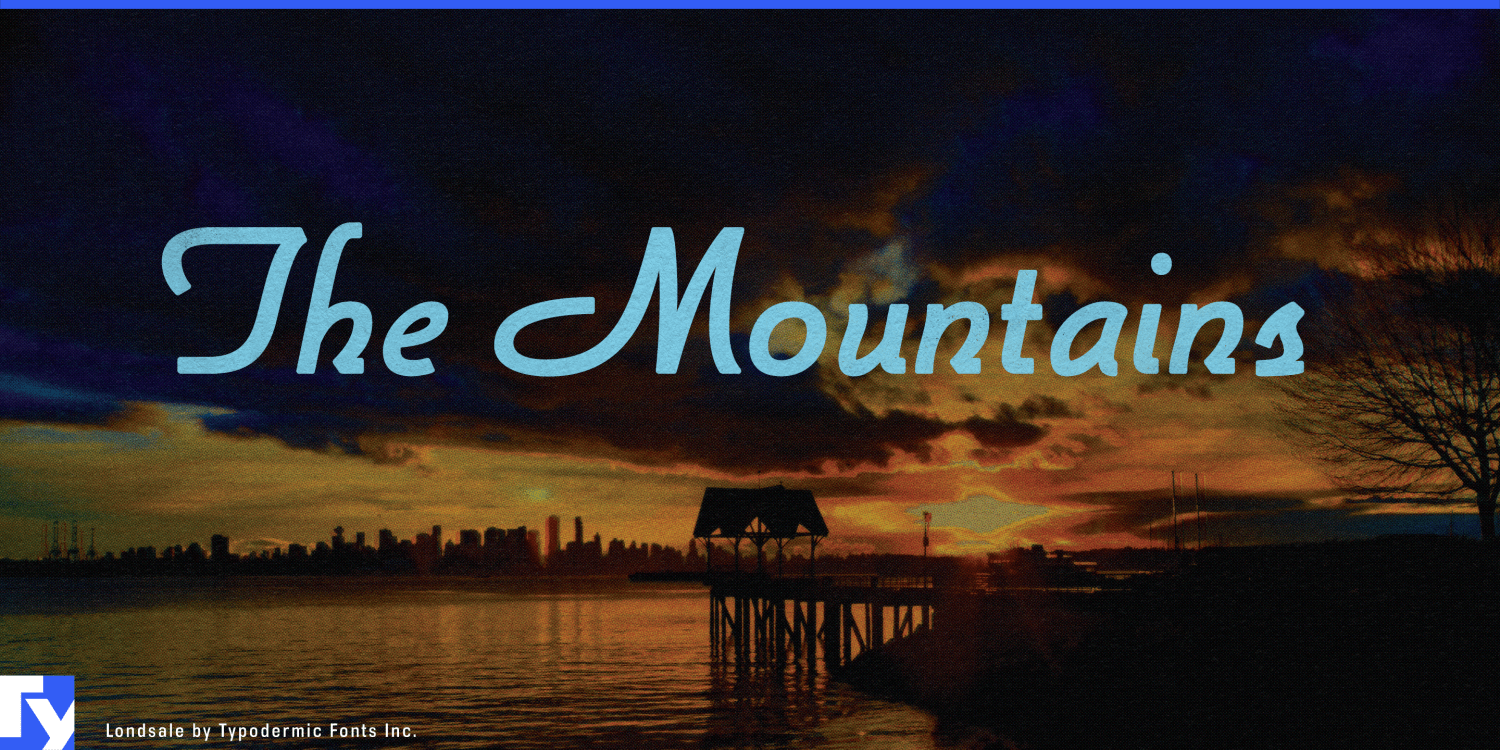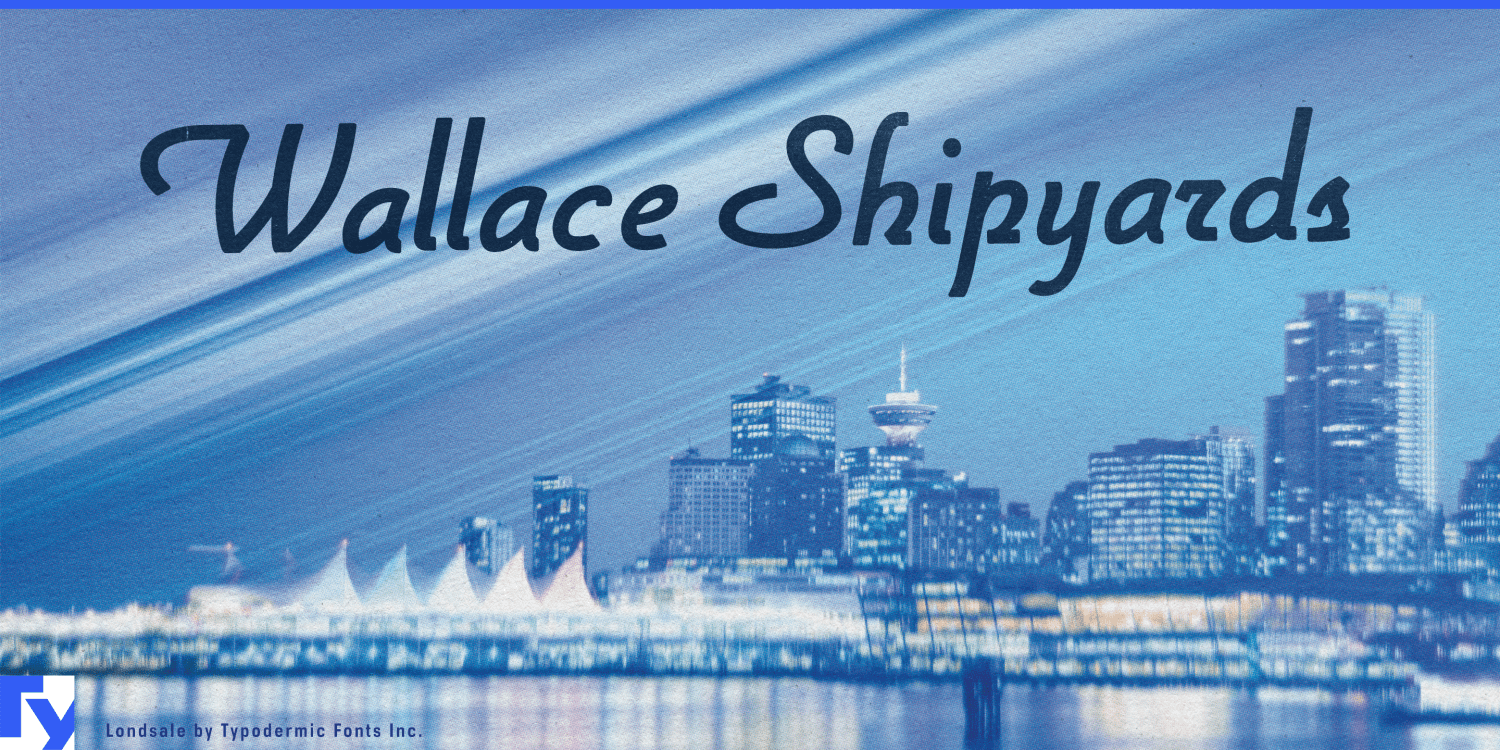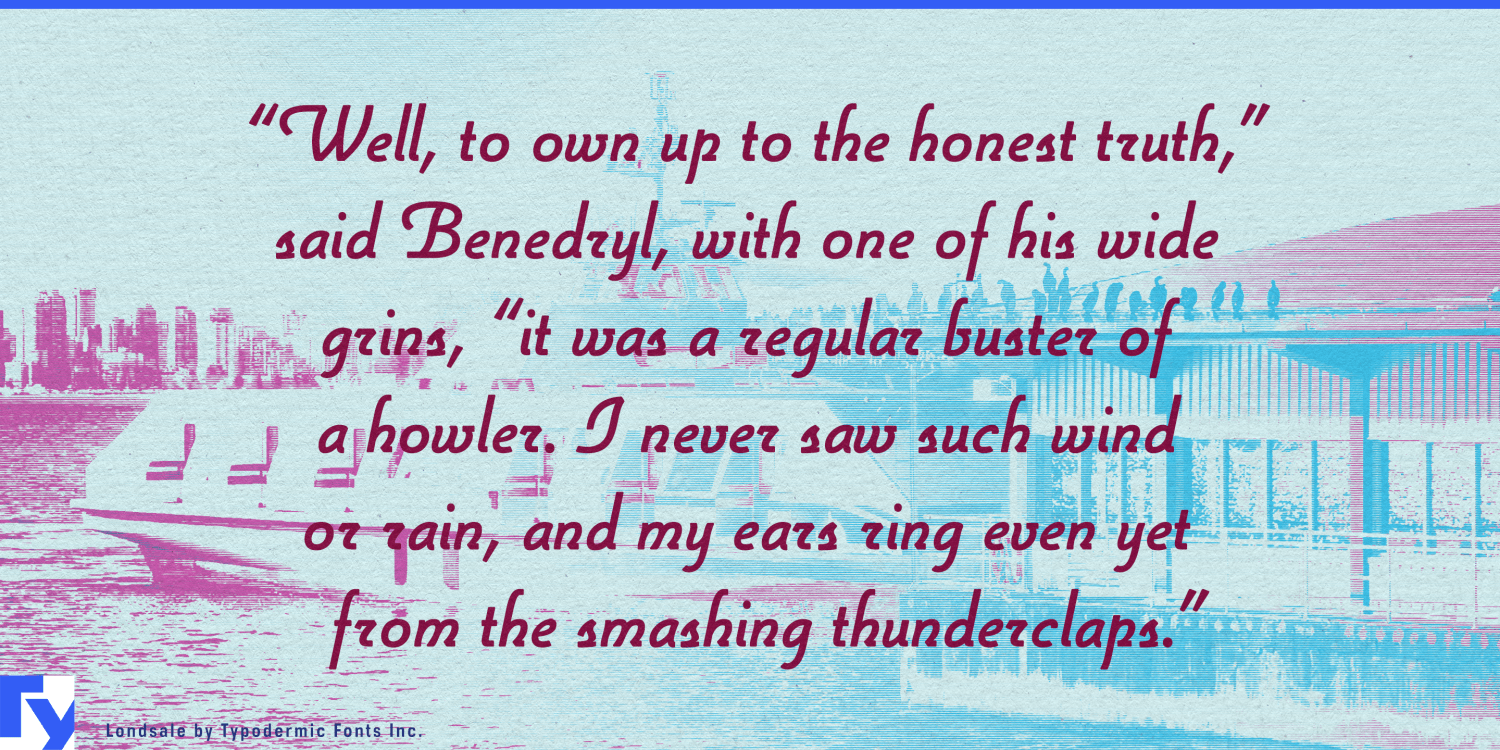
About Lonsdale
Step into a world of refined sophistication with Lonsdale, a disconnected script typeface that seamlessly blends timeless elegance with contemporary flair. This exceptional font family draws inspiration from Emil Hirt’s iconic 1964 Parkway Script,…